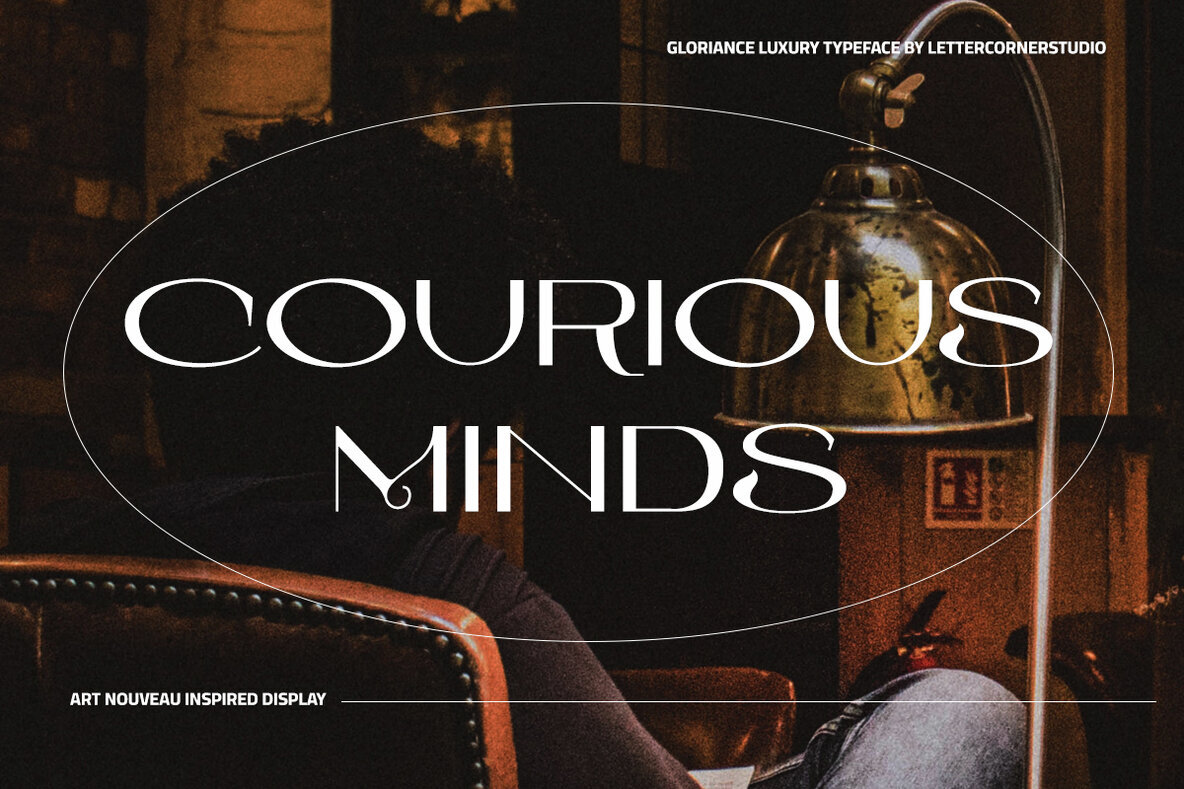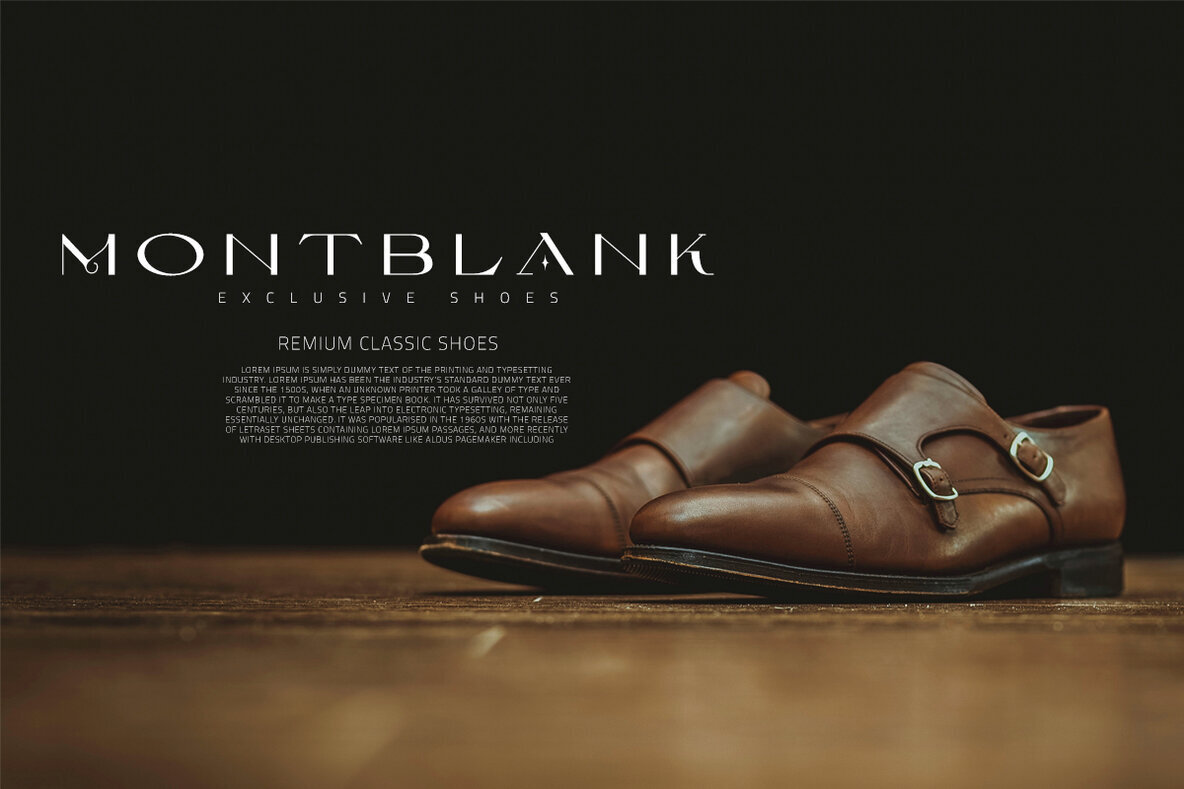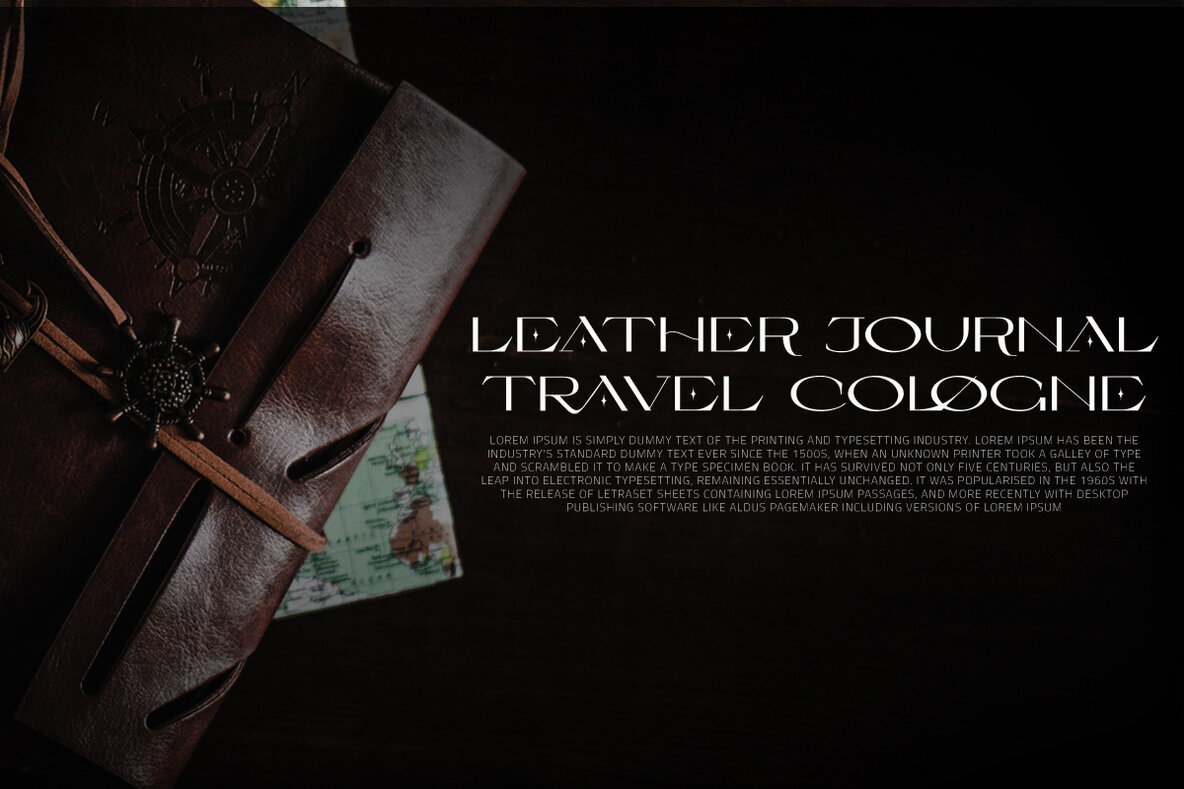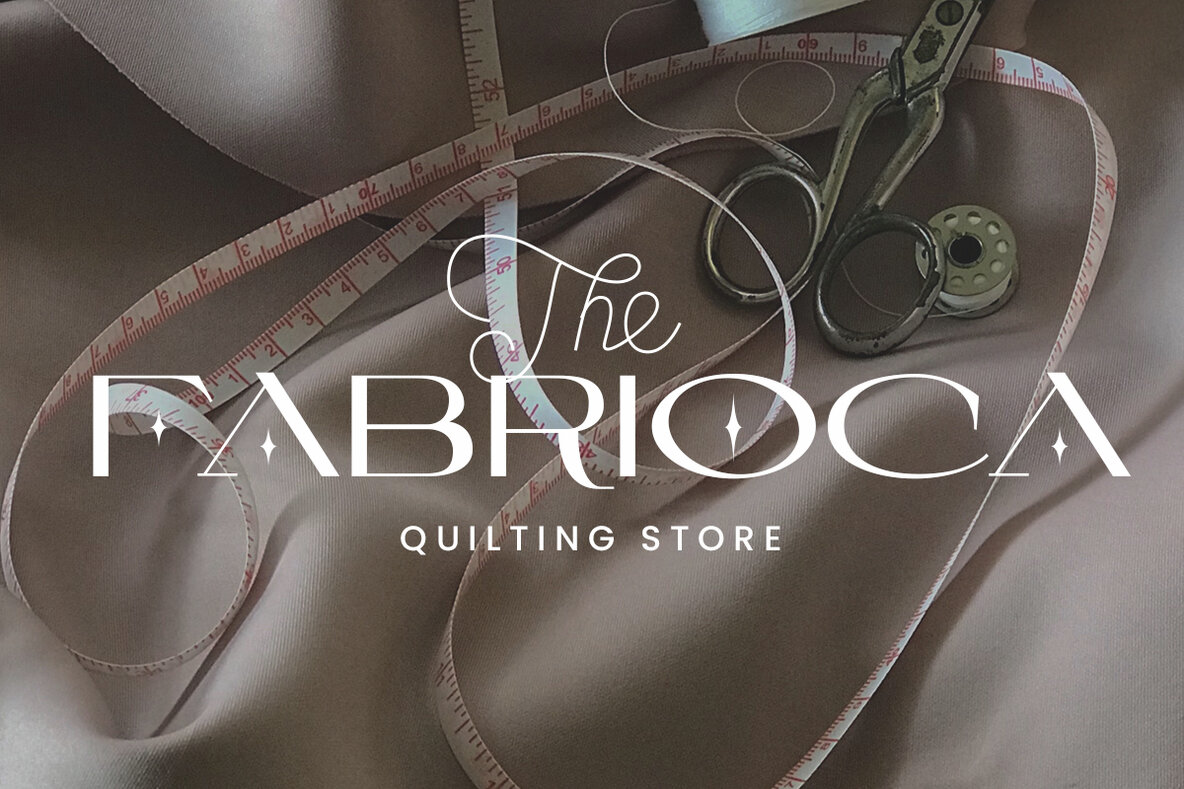
Gloriance Font
Gloriance Regular
Gloriance is a classic serif font adapted from the art deco style, a visual style that emerged in the 1920s and 1930s. This font is characterized by bold geometric shapes, a symmetrical design, and a sense of modernity and glamour. Gloriance is designed to have a distinctive classic impression with the presence of decorative elements such as extended lines, neat and tidy decorative shapes and types. These decorative elements can add a sense of sophistication and luxury to text. With a wide selection of alternates and ligatures, you can create a variety of styles and play with this unique fonts. This typeface is perfect for an elegant logo, jewelry stuff, packaging, magazine design, fashion brand, classic stuff, poster, flyer, wedding invitation, quotes, or simply as a stylish text overlay to any background image.